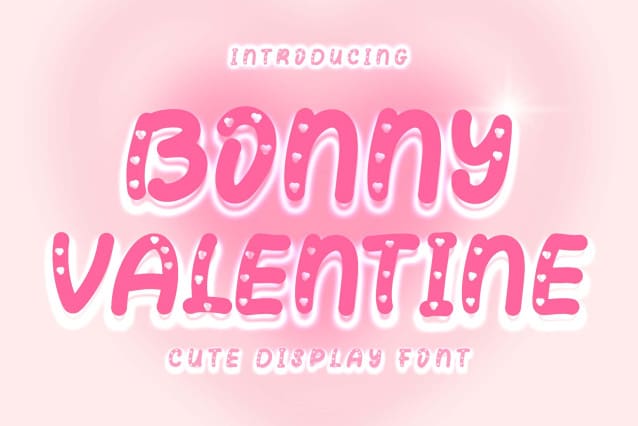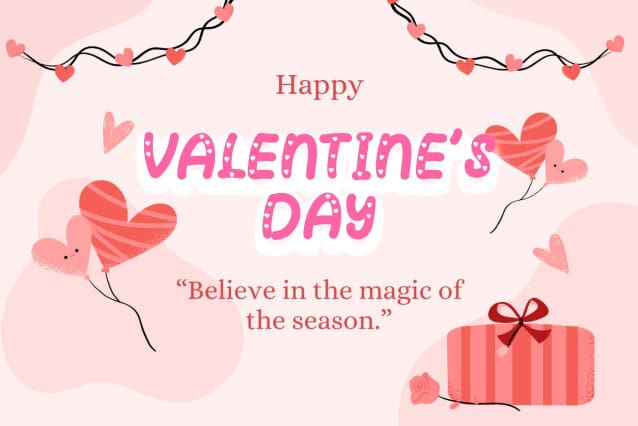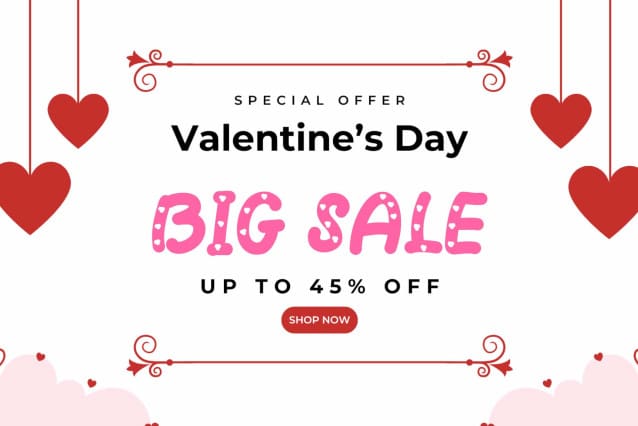
Bonny Valentine Font
Bonny Valentine Font is a cute and beautiful display font. It comes with uppercase, lowercase, numbers, punctuation, and multilingual support. It is perfect for use on Valentine’s Day, wedding, birthday, banner, poster, print, branding, sticker, poster, Christmas, winter, and more.